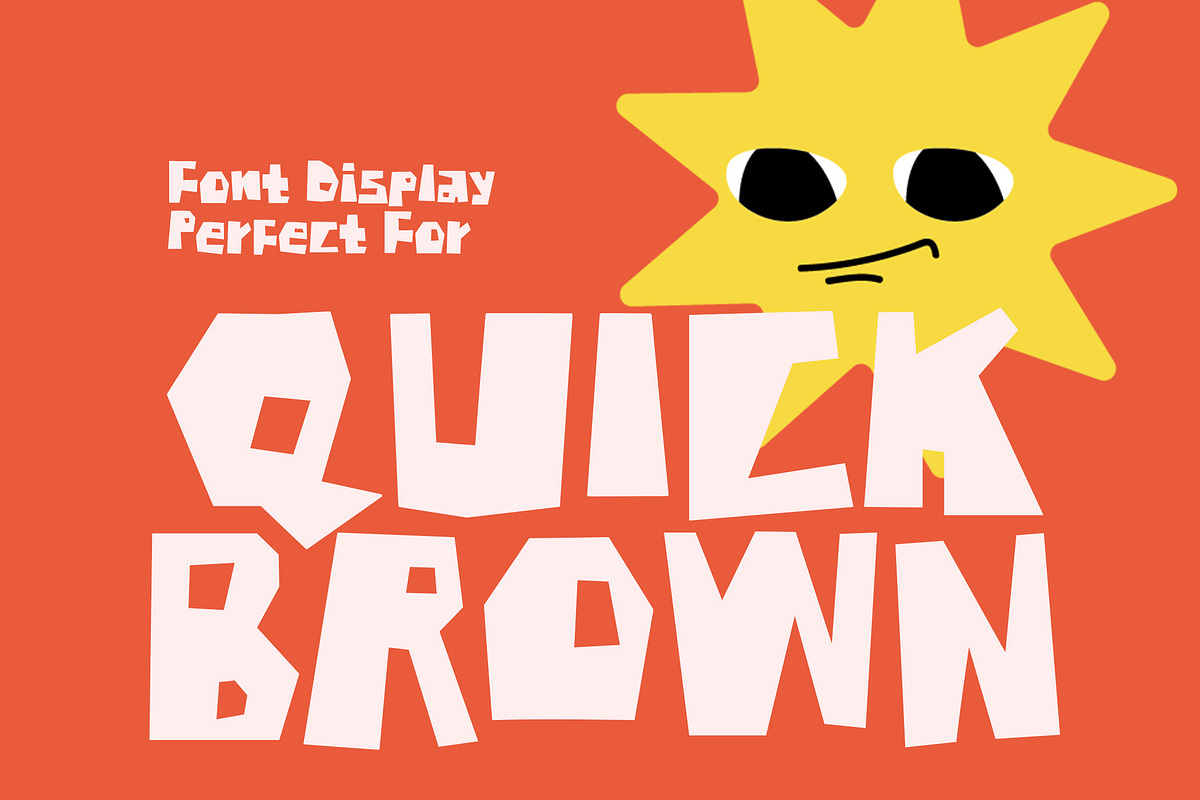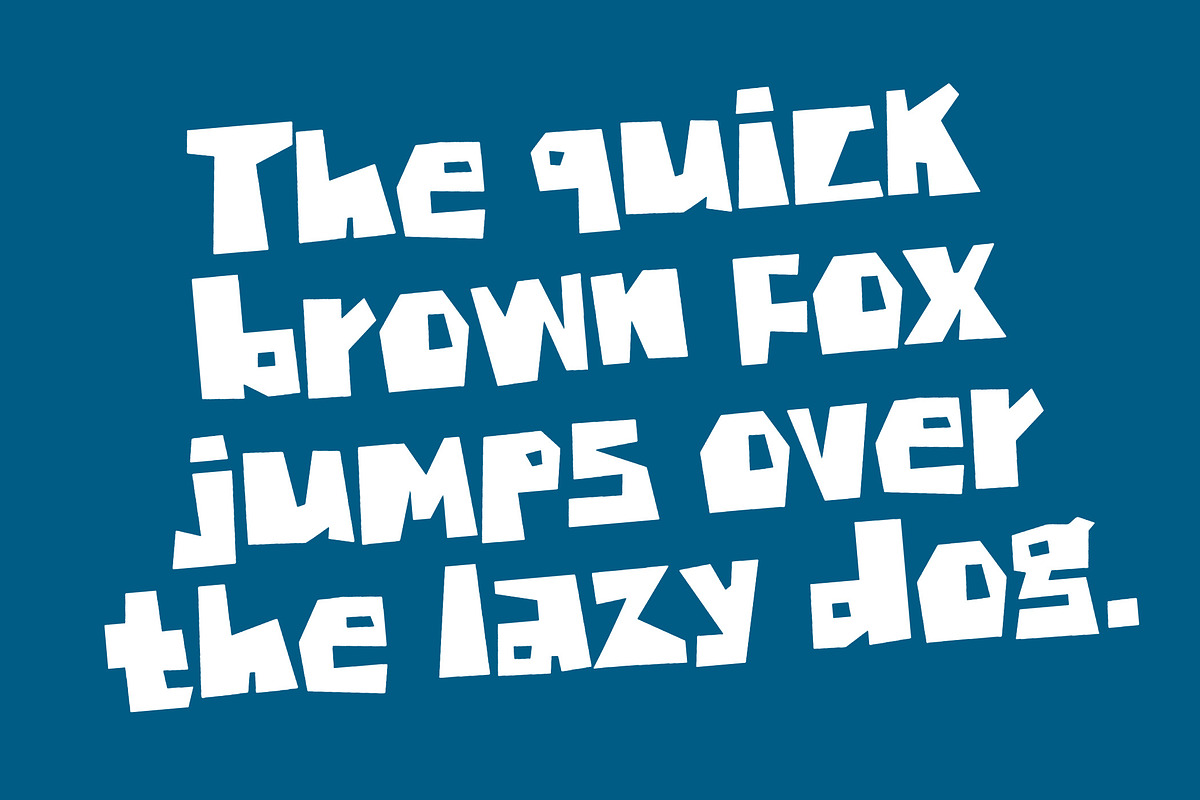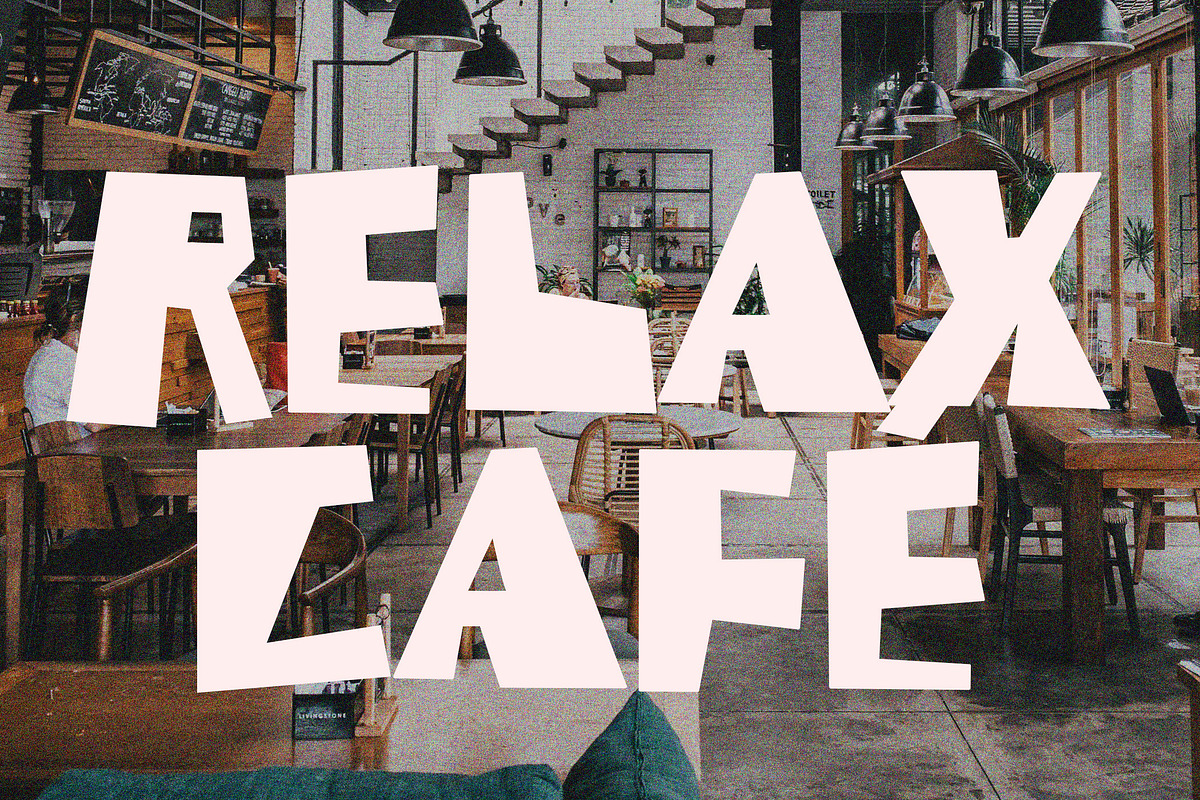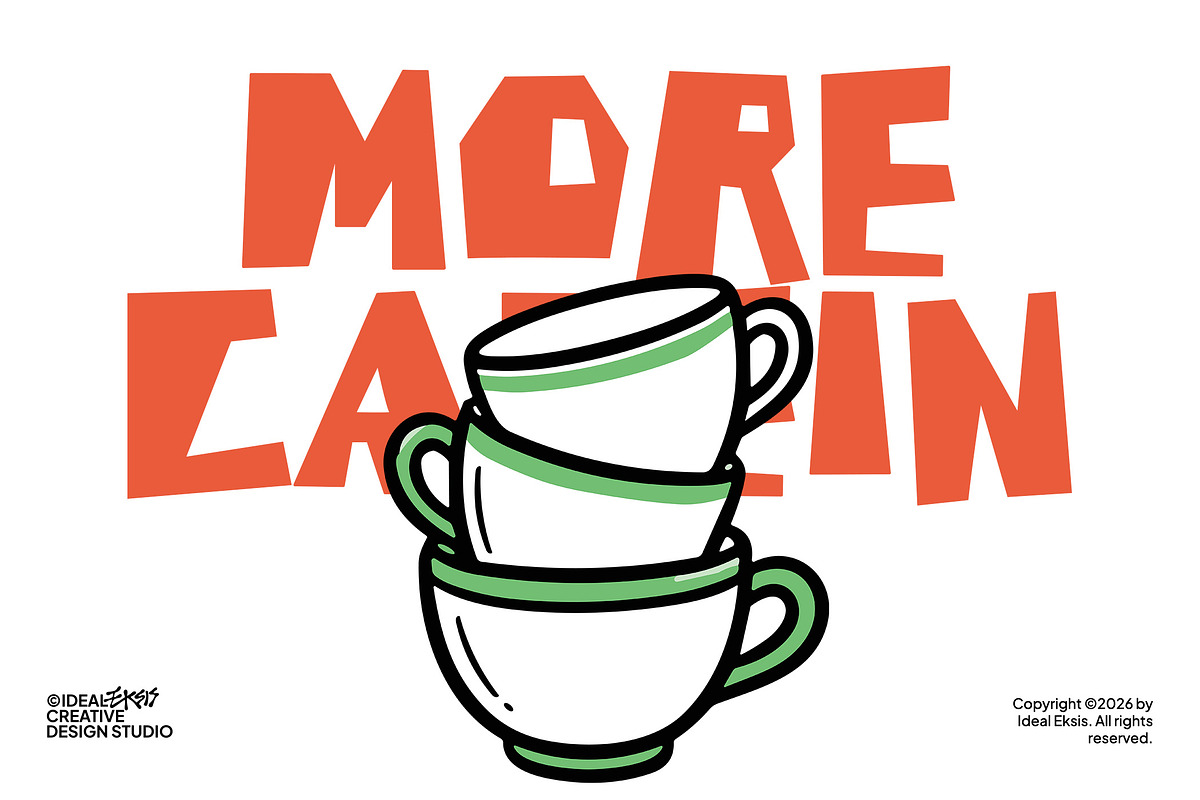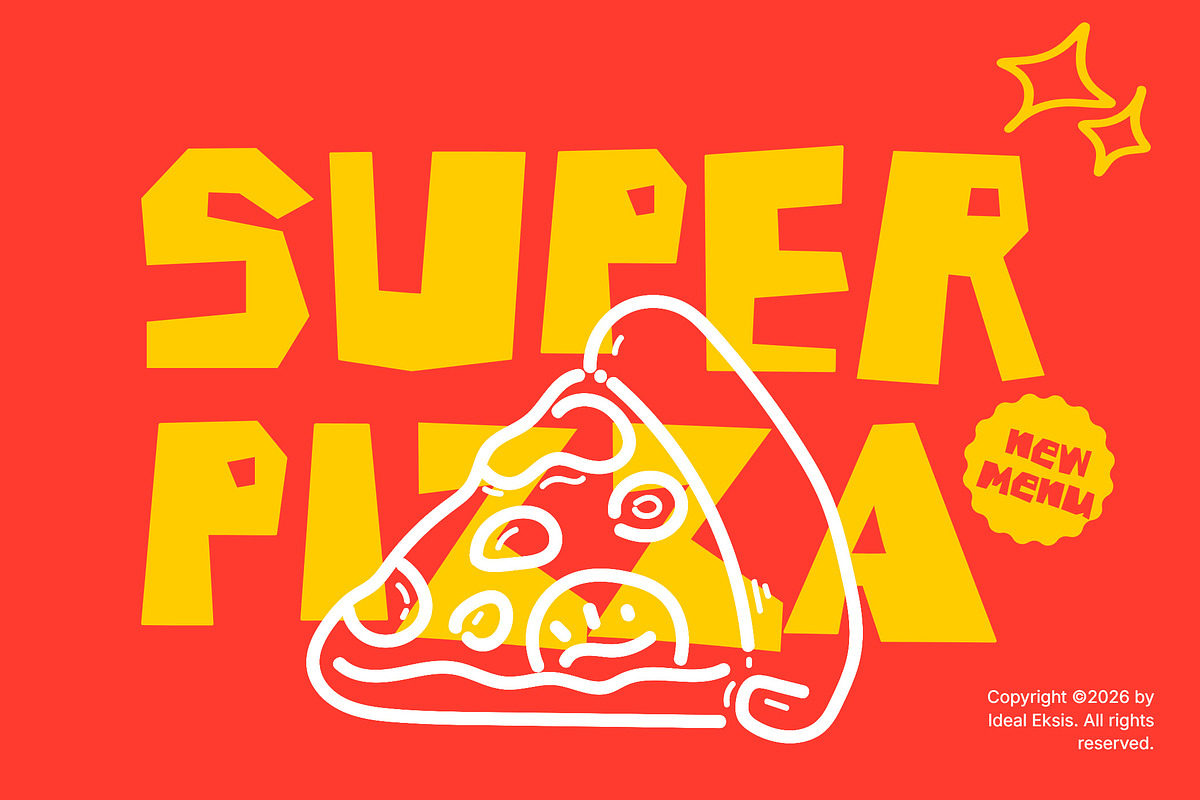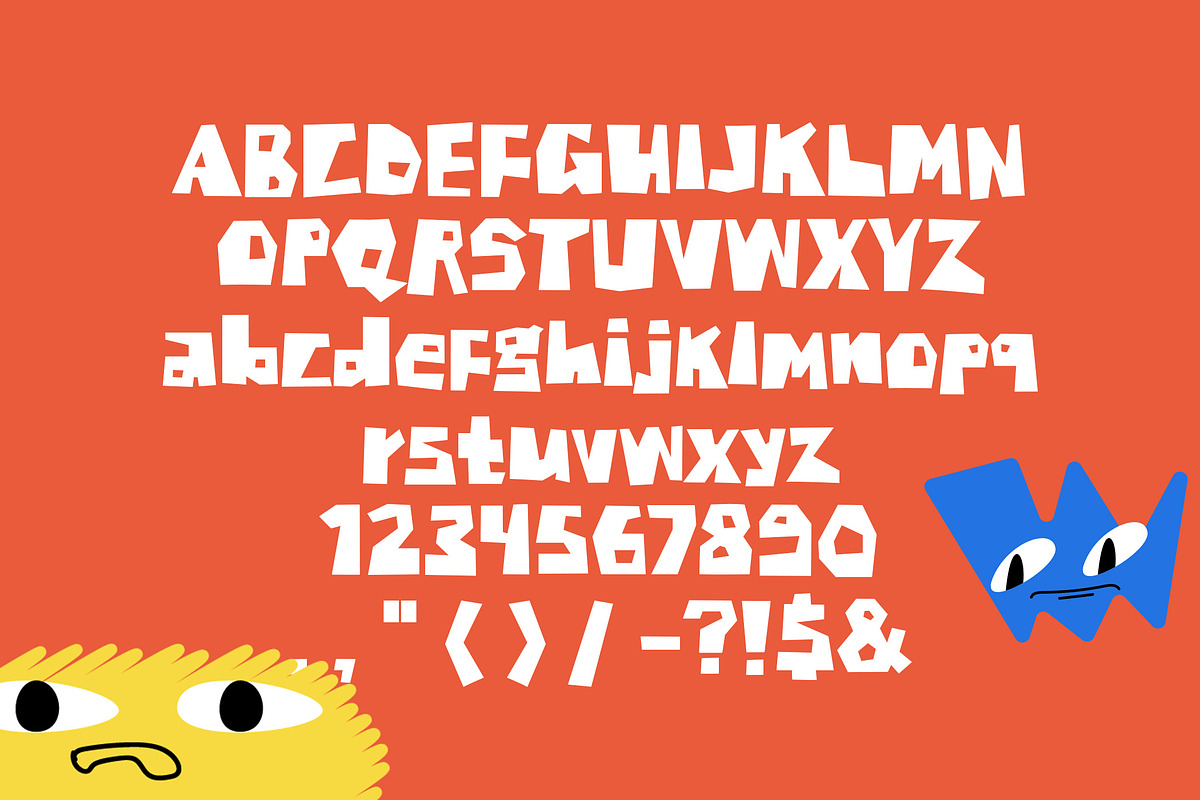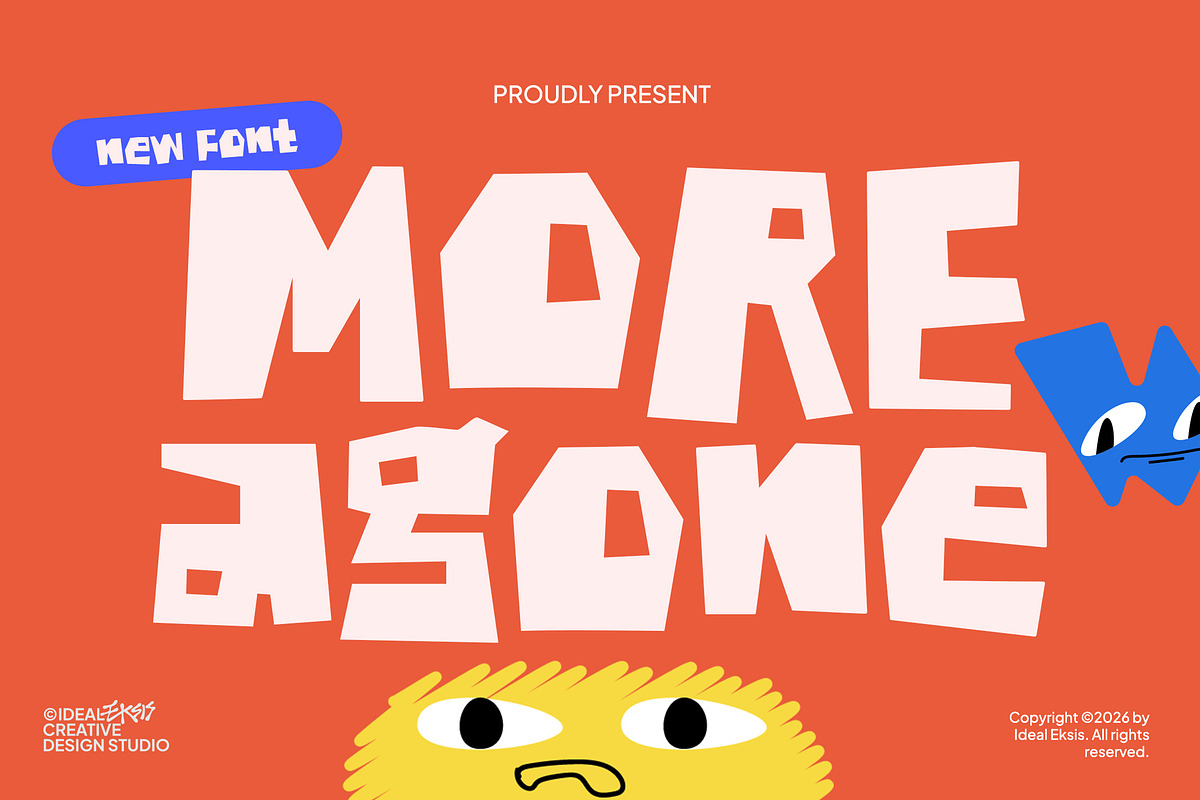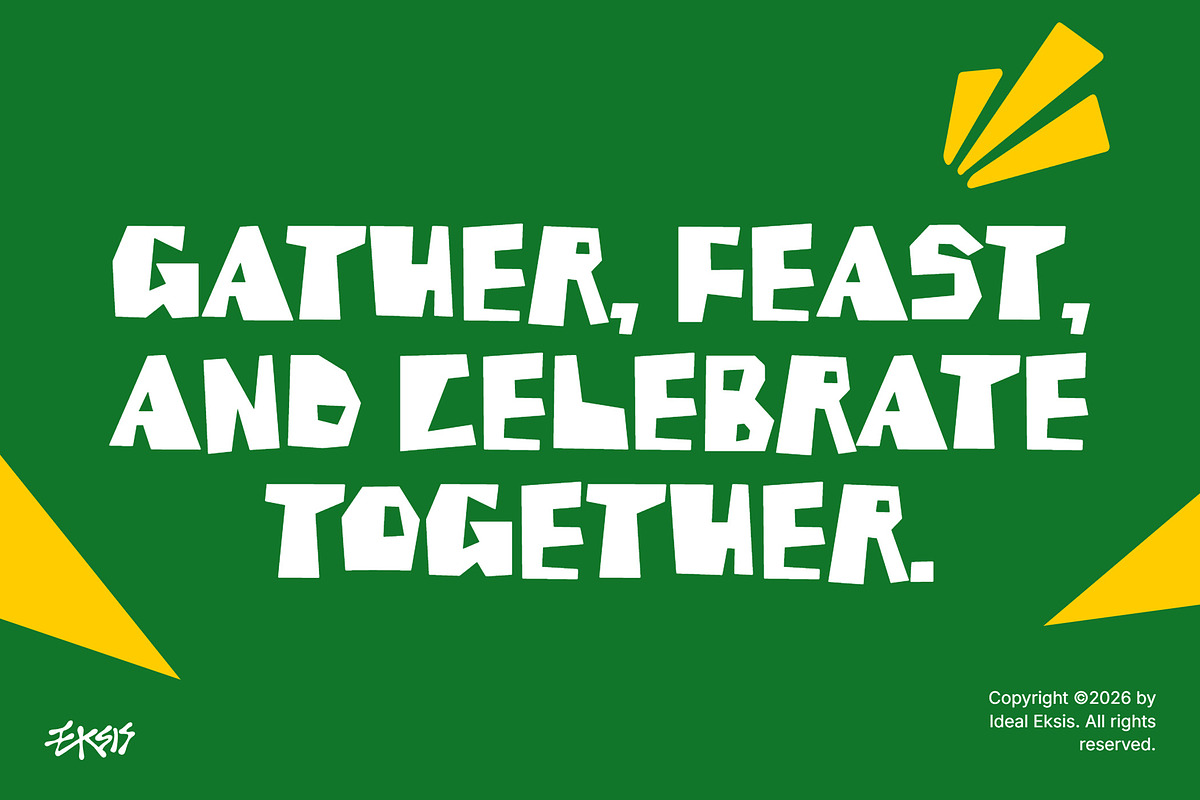
More Agone
This font features an ultra-bold, blocky display style with a distinct paper-cut or hand-carved aesthetic. The letterforms are characterized by sharp, irregular angles, uneven stroke widths, and quirky geometric counters. Its heavy weight and playful, energetic vibe make it highly expressive, perfect for eye-catching headlines, poster designs, branding, and children's book covers where a fun, hand-crafted feel is desired.